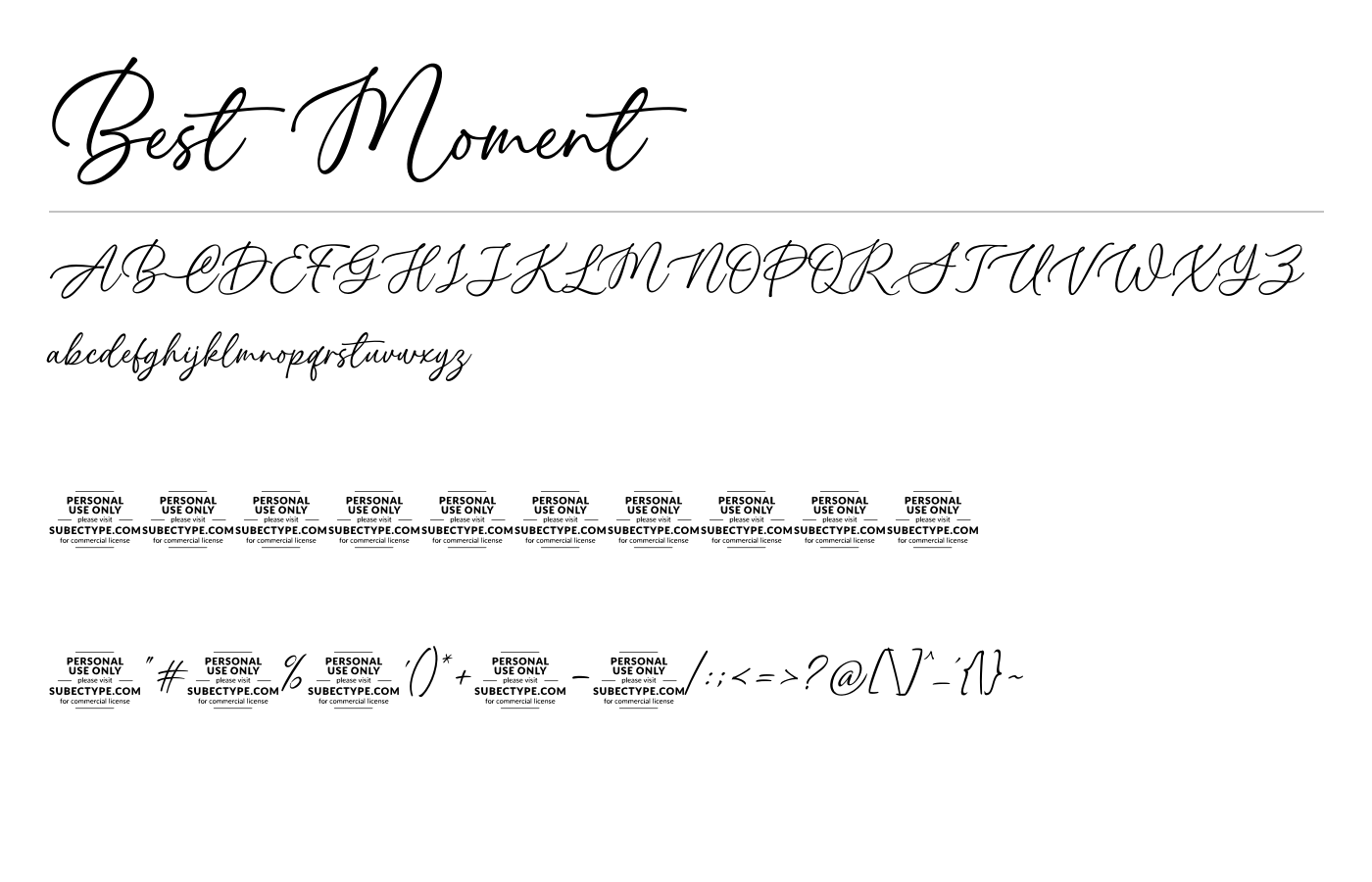
Best Moment is an elegant script font with a delicate, flowing style that mimics natural handwriting. Its light weight and graceful curves give it a refined and personal feel, making it perfect for wedding invitations, branding, and any design that seeks a touch of sophistication and warmth. This font works well in headlines and decorative text where charm and elegance are key.
Best Moment Font
About Best Moment Font
| Font family | Best Moment Font |
| Designer | Rangga Singgih Subekti |